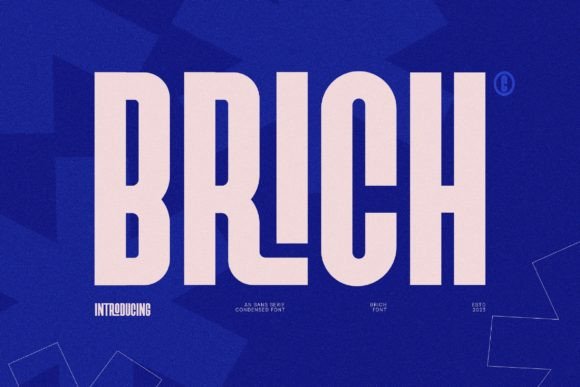
Discover the Elegance of Brich Font: A Perfect Blend of Symmetry and Minimalism
In the world of typography, fonts play a crucial role in conveying messages, expressing creativity, and capturing the audience’s attention. Among the numerous typefaces available, Brich Font stands out for its unique blend of inspiration, symmetrical rhythm, and balanced design. This article will explore the characteristics, features, and applications of Brich Font, making it a must-read for designers, crafters, and anyone interested in typography.
The Inspiration Behind Brich Font
Brich Font’s design is a result of a distinctive mix of various sources of inspiration. The creator has skillfully merged different styles and elements to produce a typeface that is both elegant and minimalist. The proportions of the font are precisely adjusted, with subtle contours and contrasts that contribute to its attractive appearance. This careful balance ensures that Brich Font can be used for a wide range of graphic design purposes, from brochures and videos to advertising, branding, logos, magazines, and more.
Key Features of Brich Font
- Symmetrical and Balanced Rhythm: Brich Font’s rhythm is perfectly symmetrical, making it visually appealing and easy to read.
- Precise Proportions: The font’s proportions are carefully adjusted to ensure a harmonious and elegant appearance.
- Subtle Contours and Contrasts: The subtle contours and contrasts add depth and sophistication to the font, making it suitable for high-end designs.
Applications of Brich Font
Brich Font’s versatility makes it an excellent choice for various graphic design applications, including:
- Brochures and Magazines: The font’s elegant and minimalist design makes it perfect for publications that require a sophisticated look.
- Videos and Advertising: Brich Font’s attractive appearance and clear readability make it ideal for video scripts, advertisements, and branding materials.
- Logos and Branding: The font’s unique blend of symmetry and minimalism makes it an excellent choice for logos, trademarks, and brand identities.
- Posters and Post Templates: Brich Font’s bold and elegant design makes it suitable for posters, post templates, and other visual materials.
- Games and Layout Designs: The font’s clear readability and attractive appearance make it a great choice for game titles, menus, and layout designs.
Why Choose Brich Font?
With the numerous fonts available, why should designers and crafters choose Brich Font? Here are a few compelling reasons:
- Elegance and Minimalism: Brich Font offers a perfect blend of elegance and minimalism, making it suitable for a wide range of designs.
- Readability and Versatility: The font’s clear readability and versatility make it an excellent choice for various applications.
In conclusion, Brich Font is a unique and elegant typeface that offers a perfect blend of symmetry, minimalism, and versatility. Its precise proportions, subtle contours, and PUA encoding make it an excellent choice for designers, crafters, and anyone interested in typography. Whether you’re working on a brochure, video, advertisement, logo, or any other graphic design project, Brich Font is sure to impress. Discover the elegance of Brich Font and take your designs to the next level!